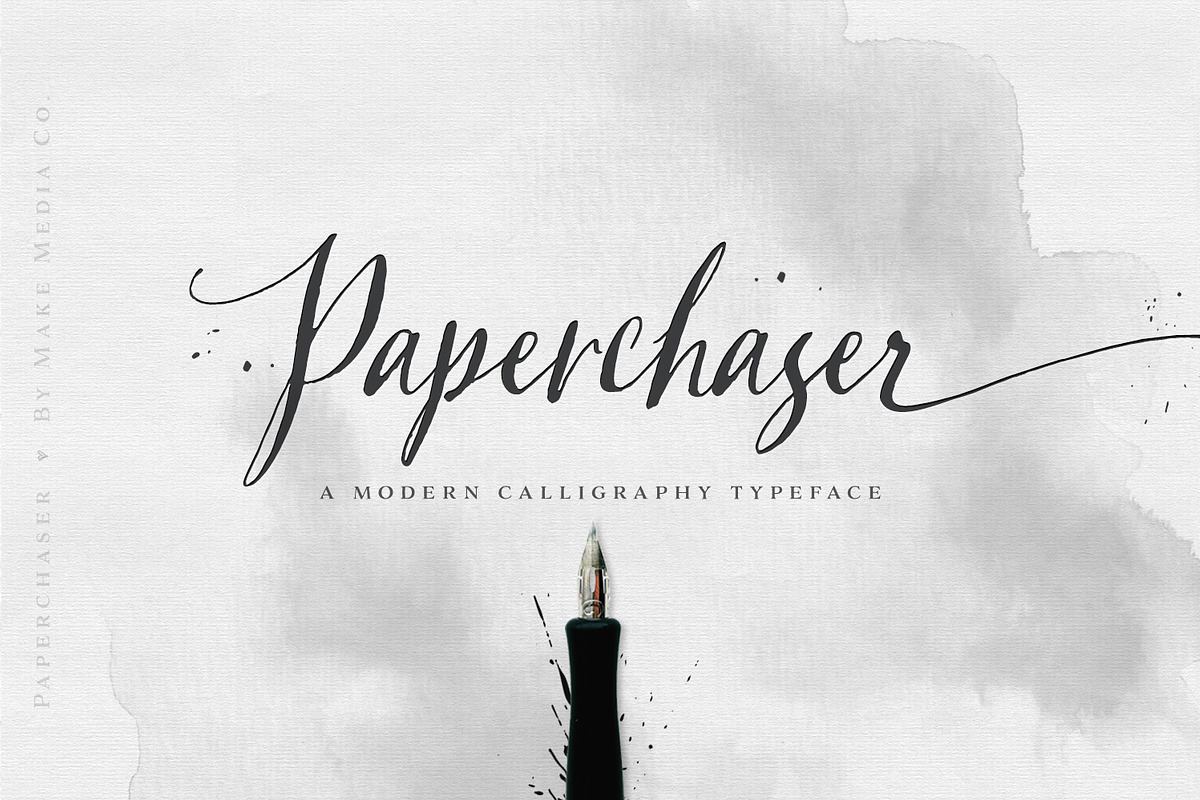
Paperchaser Calligraphy Free Download is a luxurious and flowing script font that embodies elegance and artistry. With its graceful curves, delicate strokes, and high-end handwritten style, this font is perfect for wedding invitations, branding, stationery, packaging, and social media graphics that require a refined, feminine touch.
Inspired by modern calligraphy, Paperchaser offers stylistic alternates and ligatures to enhance your designs with a custom, personal feel. It's both expressive and versatile, making it ideal for use in upscale and romantic design projects.